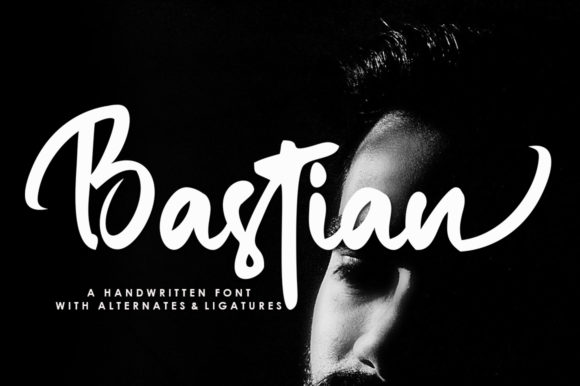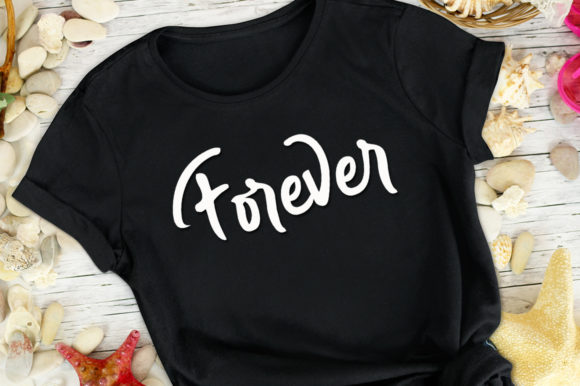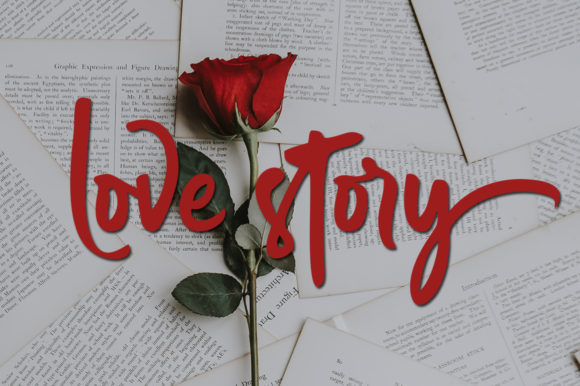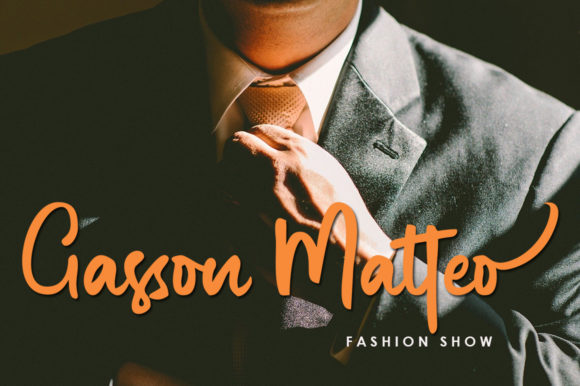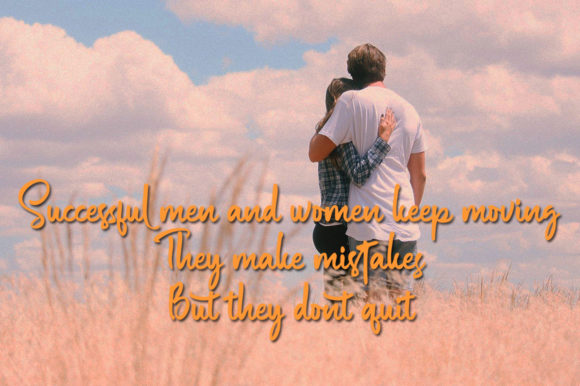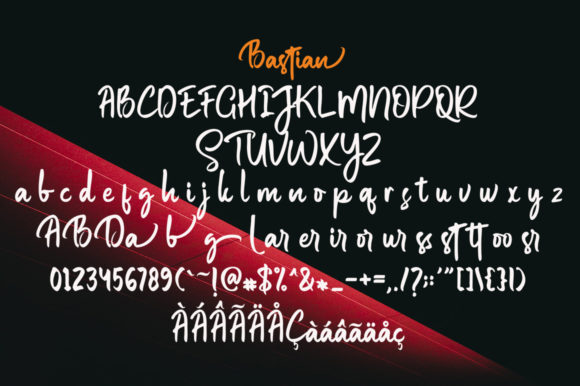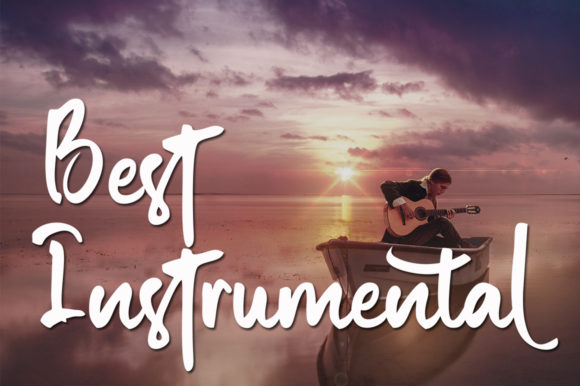
Bastian Font
About Bastian Font
Bastian is a modern handwritten font, created with the help of a beautiful brush pen. Fall in love with its incredibly versatile style and use it to create gorgeous logos, media posts and so much more!